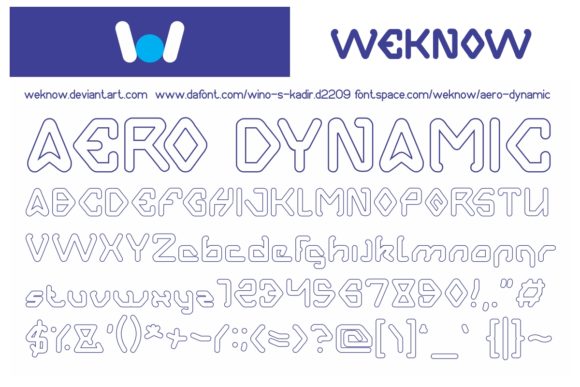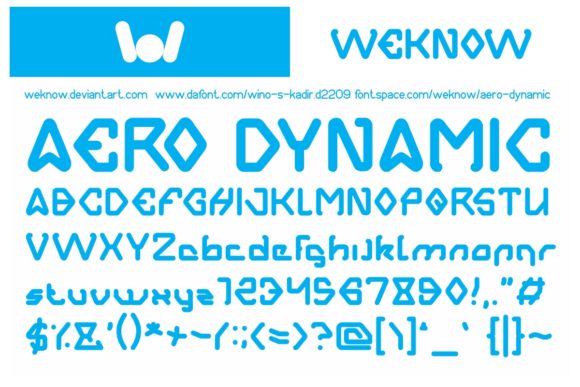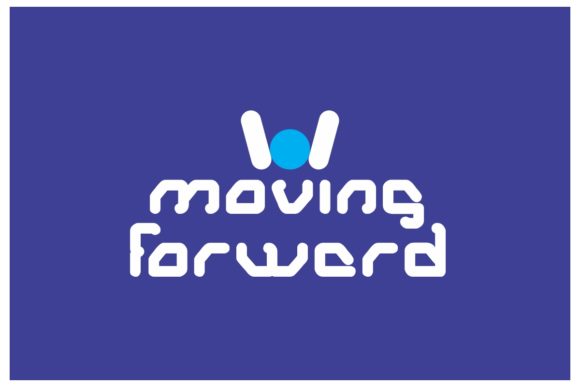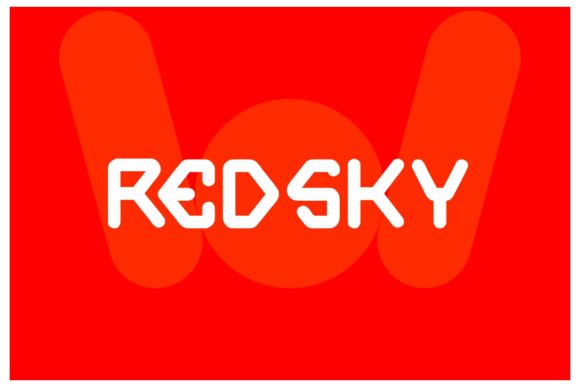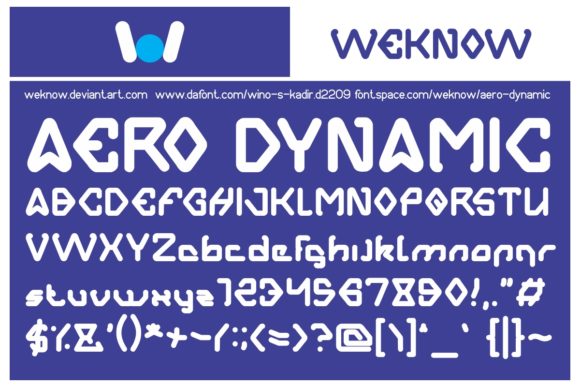
Aero Dynamic Font: Elevate Your Designs with a Sweet and Charming Display Font
Aero Dynamic is a sweet and charming display font that will turn any design idea into a standout! If you’re a designer or crafter looking for a font that can add a touch of personality and whimsy to your projects, Aero Dynamic is an excellent choice. In this article, we’ll explore the features and benefits of Aero Dynamic, and how it can elevate your designs to the next level.
What is Aero Dynamic Font?
Aero Dynamic is a display font designed to make a statement. Its unique and playful design makes it perfect for a wide range of projects, from branding and advertising to packaging and digital media. The font features smooth lines, rounded edges, and a charming aesthetic that is sure to capture attention.
Key Features of Aero Dynamic Font
• Unique and Playful Design: Aero Dynamic’s design is unlike any other font. Its smooth lines and rounded edges give it a friendly and approachable feel that is perfect for designs that need a personal touch.
• Highly Versatile: Aero Dynamic is a highly versatile font that can be used for a wide range of projects, from headings and titles to logos and branding.
• Easily Readable: Despite its playful design, Aero Dynamic is easily readable, even at small sizes. This makes it perfect for designs that need to convey a message quickly and effectively.
Benefits of Using Aero Dynamic Font
So, why should you choose Aero Dynamic for your next design project? Here are just a few benefits of using this sweet and charming display font:
• Adds Personality to Your Designs: Aero Dynamic’s unique design adds a touch of personality to any project, making it stand out from the crowd.
• Perfect for Branding and Advertising: Aero Dynamic’s playful design makes it perfect for branding and advertising projects that need to capture attention and convey a message quickly.
• Great for Digital Media: Aero Dynamic is optimized for digital media, making it perfect for websites, social media graphics, and other online projects.
How to Use Aero Dynamic Font
Using Aero Dynamic is easy! Here are a few tips to get you started:
• Pair it with a Sans-Serif Font: Aero Dynamic pairs well with sans-serif fonts like Arial or Helvetica. Try pairing it with a sans-serif font for a clean and modern look.
• Use it for Headings and Titles: Aero Dynamic is perfect for headings and titles. Use it to add a touch of personality to your designs and make them stand out.
• Experiment with Colors and Textures: Aero Dynamic looks great in a variety of colors and textures. Experiment with different colors and textures to find the perfect look for your design.
Aero Dynamic is a sweet and charming display font that is perfect for designers and crafters looking to add a touch of personality to their projects. With its unique and playful design, Aero Dynamic is sure to capture attention and make your designs stand out. Whether you’re working on a branding project, advertising campaign, or digital media project, Aero Dynamic is an excellent choice.